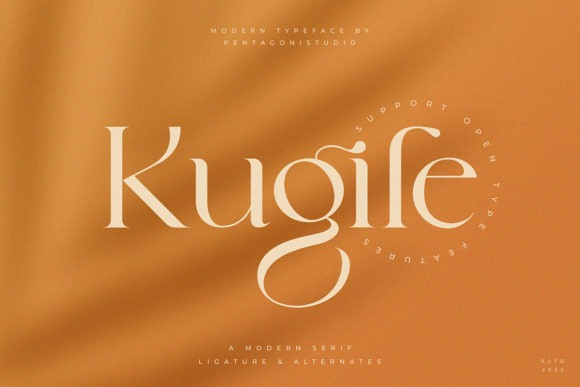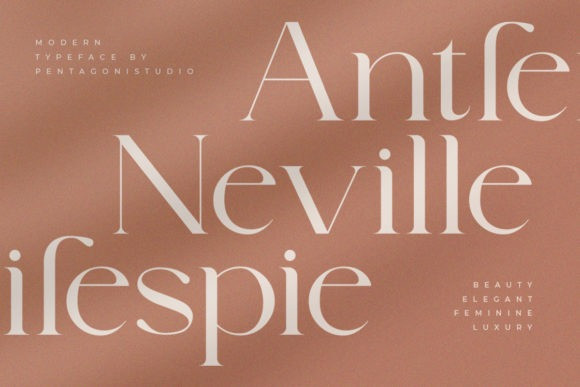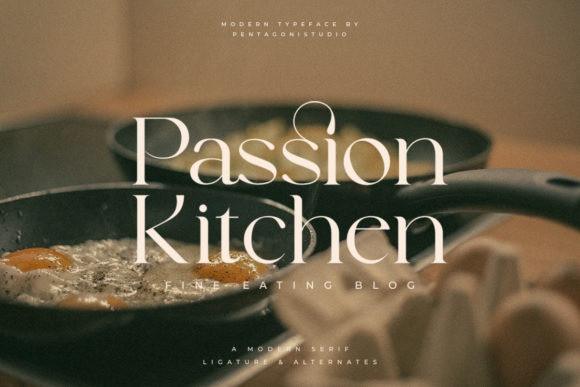
Kugile Font
Kugile is a classy and elegant serif font. Trendy and stylish, this font will elevate each of your creations. Kugile is PUA encoded which means you can access all of the glyphs and swashes with ease!